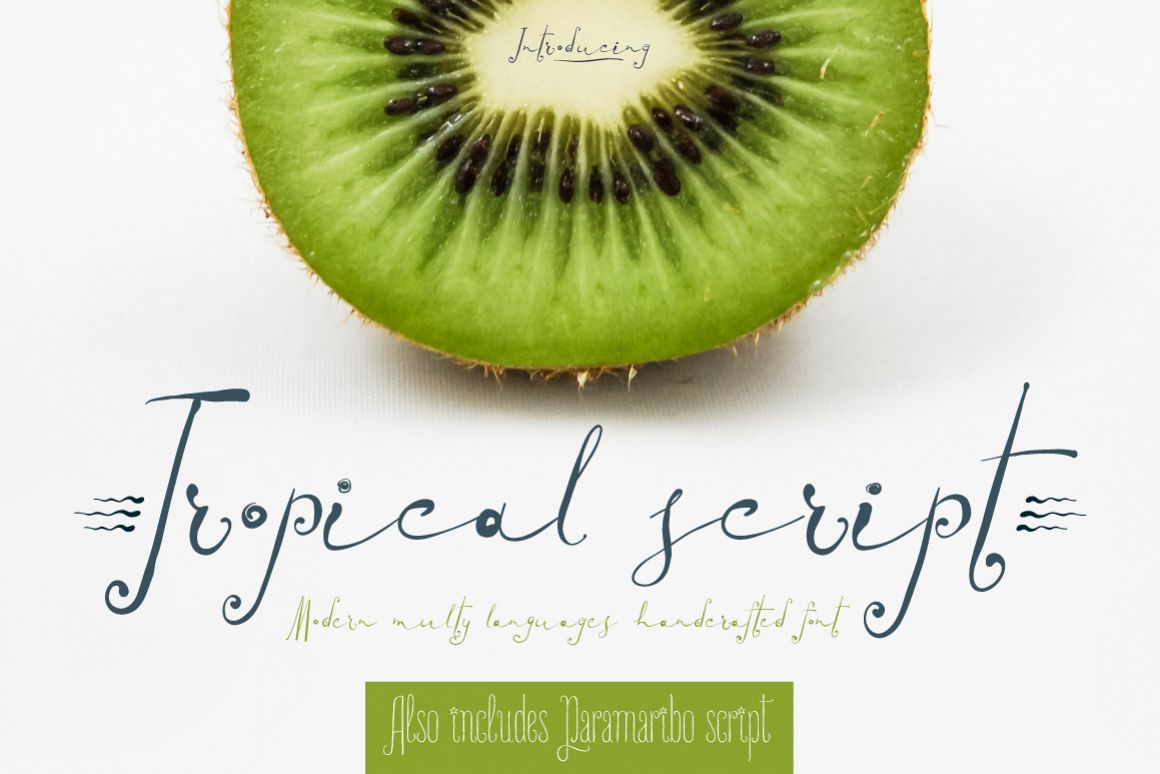
TROPICAL script
Tropical temptation with Tropical script. Cute hand lettered font inspired by Hawaii islands’ natural beauty and zest. Stylistic alternates gives an additional handmade mood. Your quotes, wedding items would look sooo cute with this font. Also is perfect for social media texts, blogs and much more.
Font is Latin multilingual and have uppercase letters, lowercase letters, numbers and basic punctuations.
Two designs on preview pictures are created by using Tropical script and Paramaribo script (another script font from my collection).